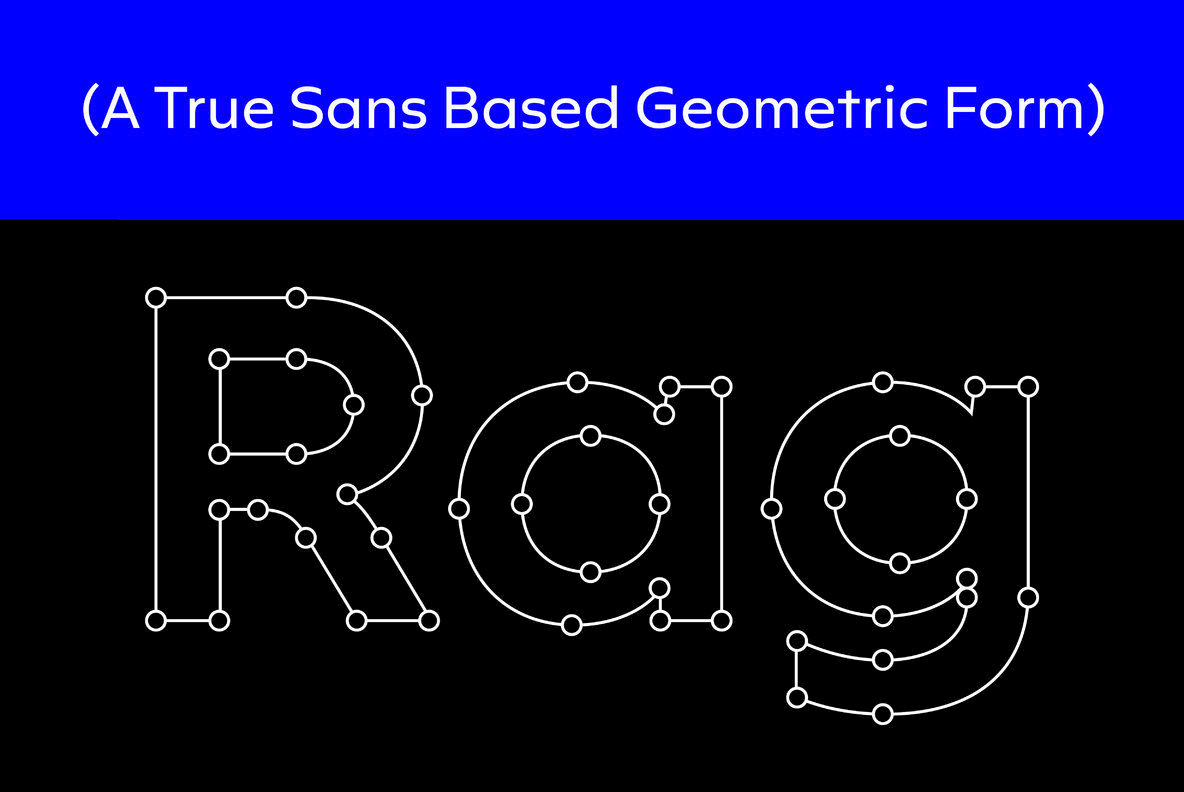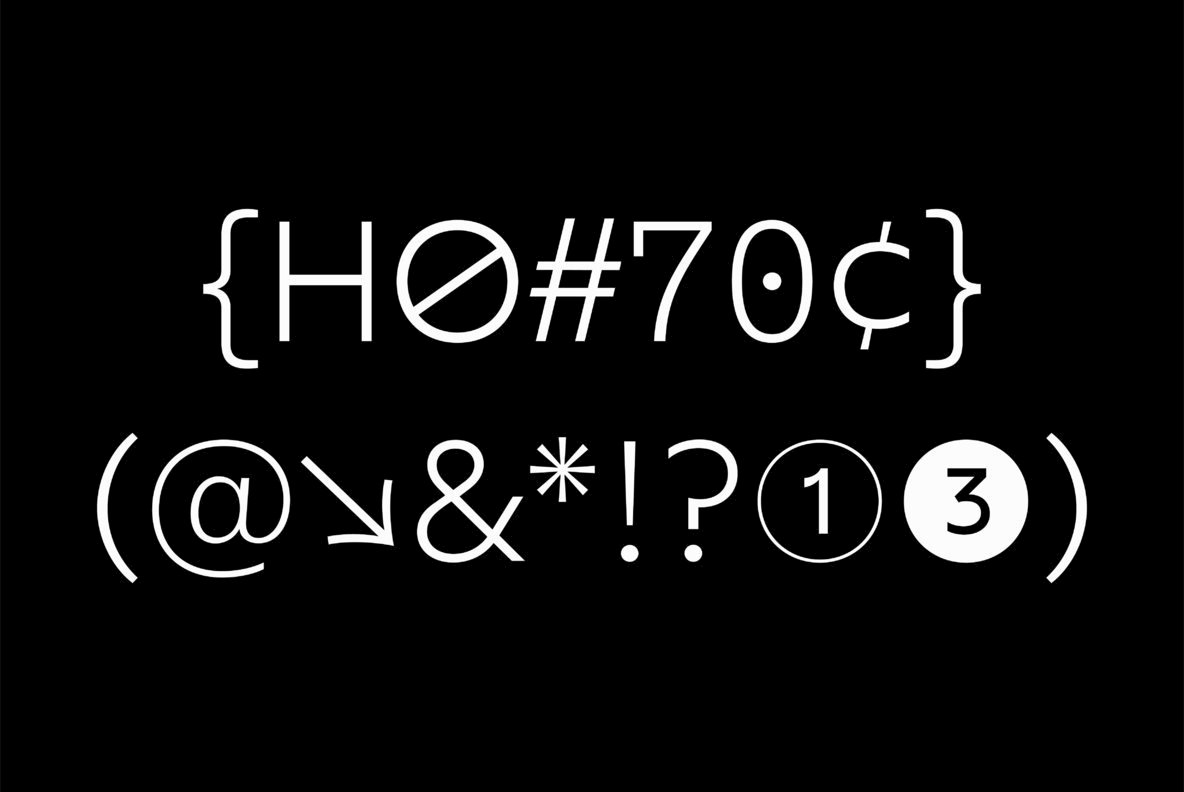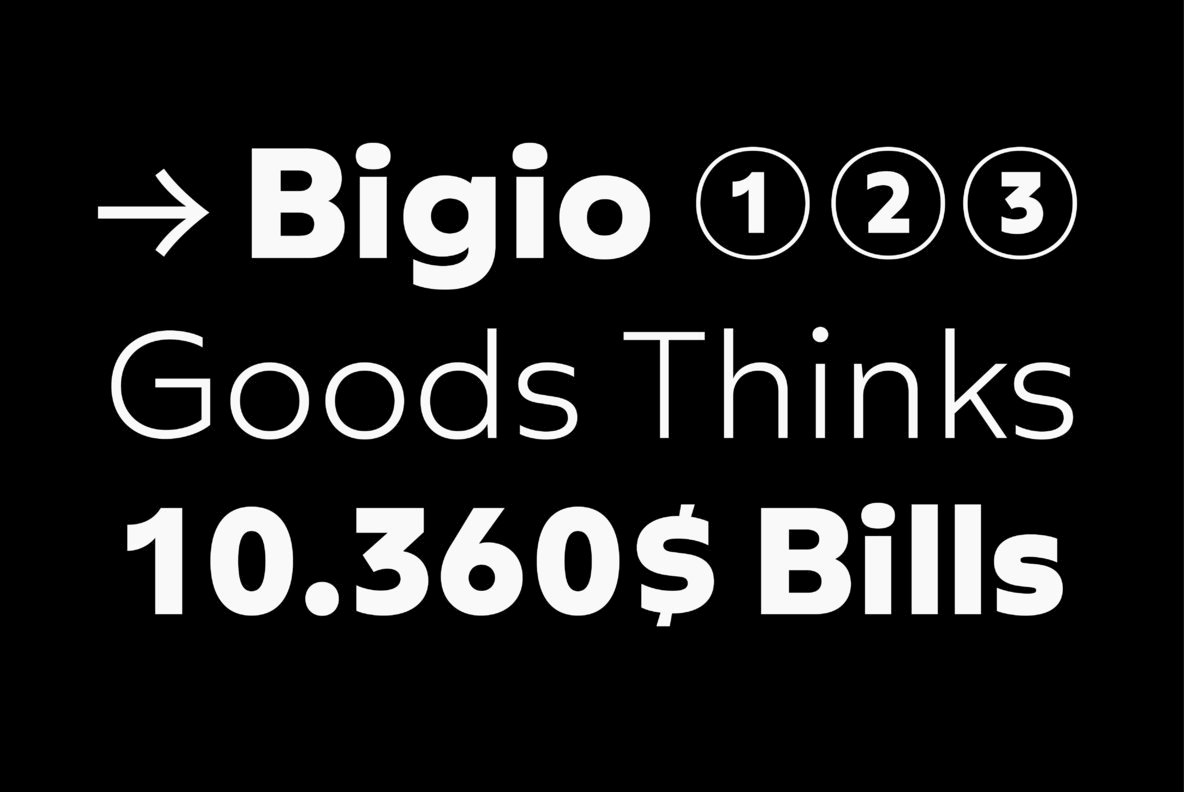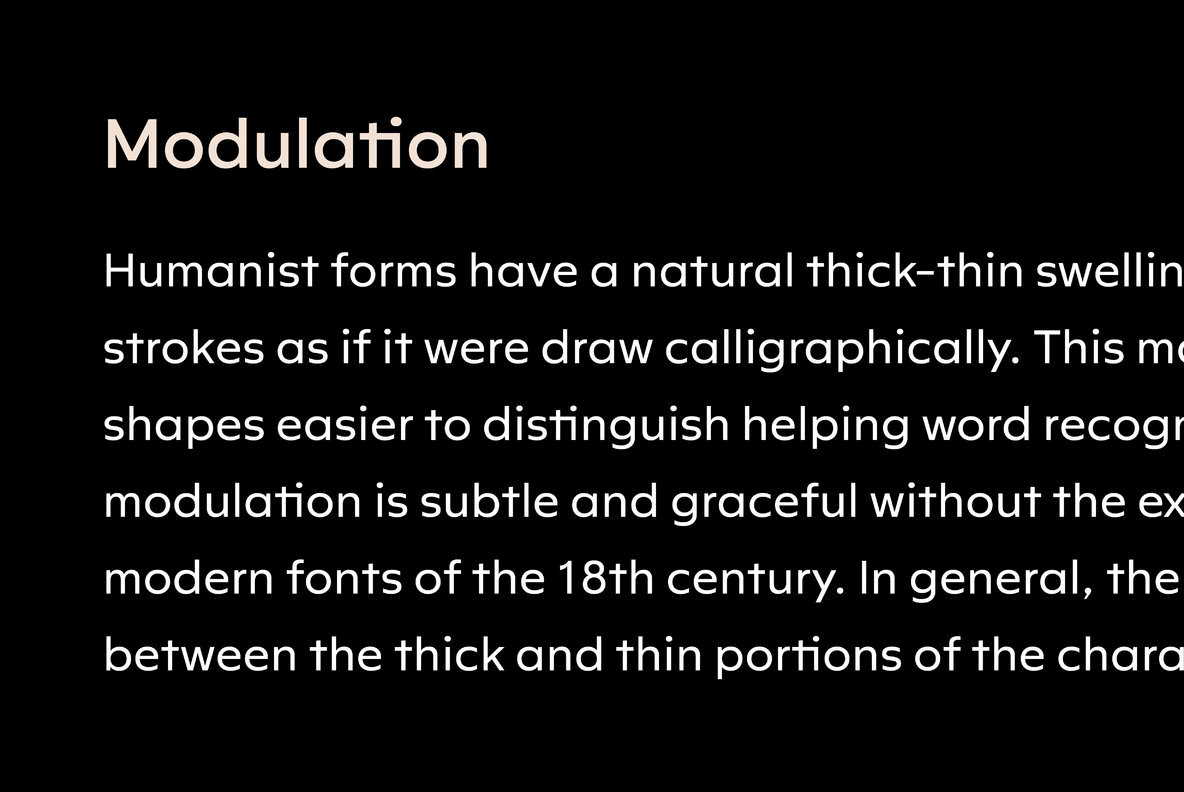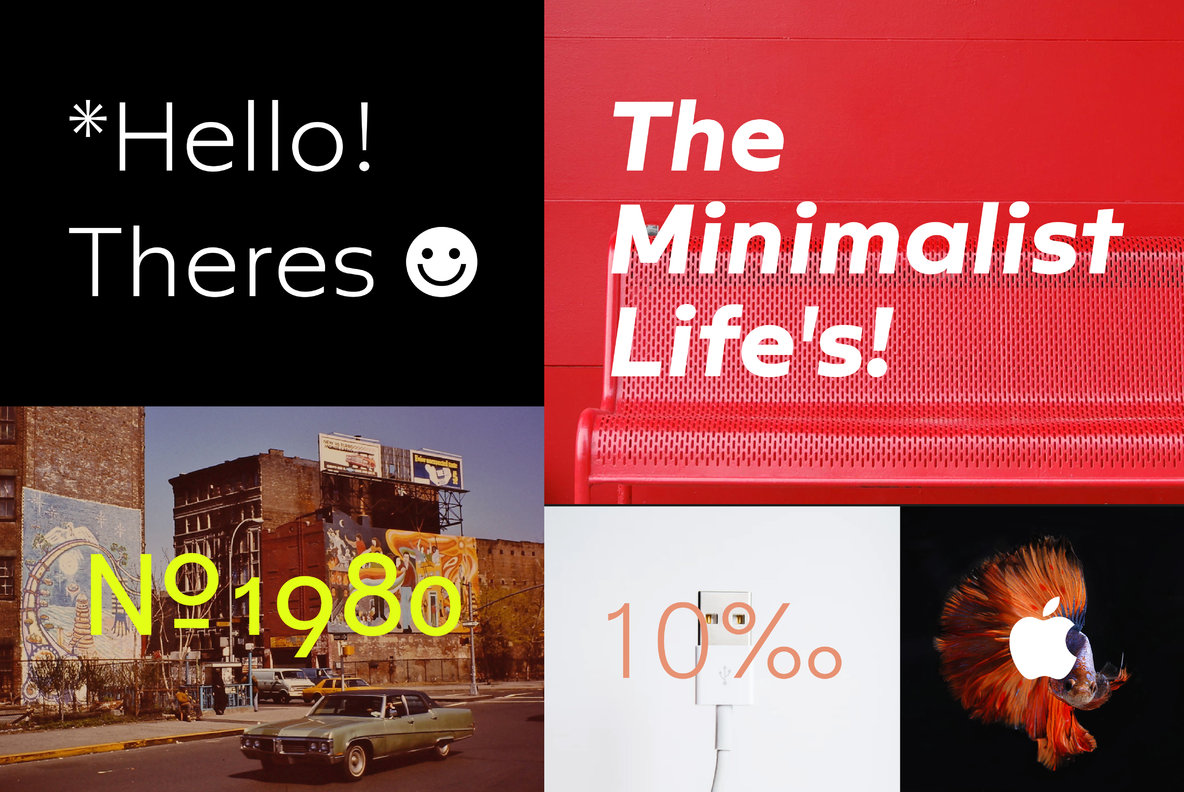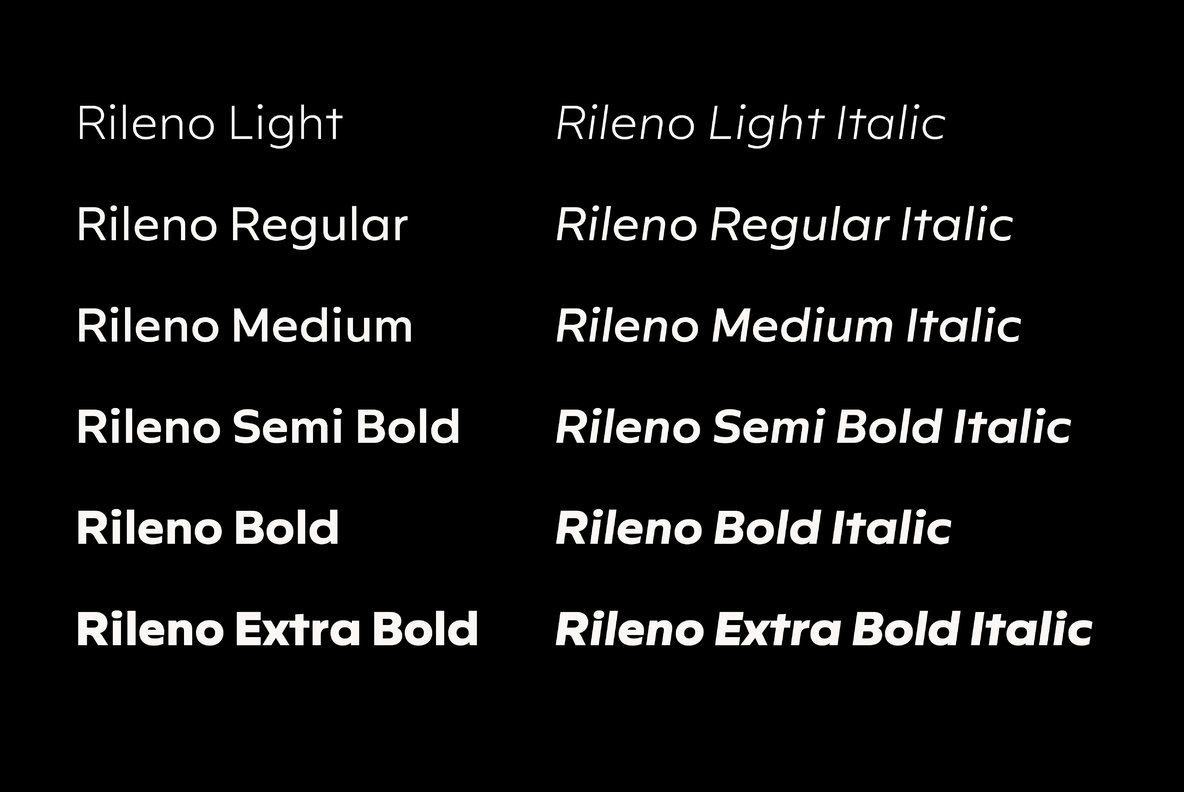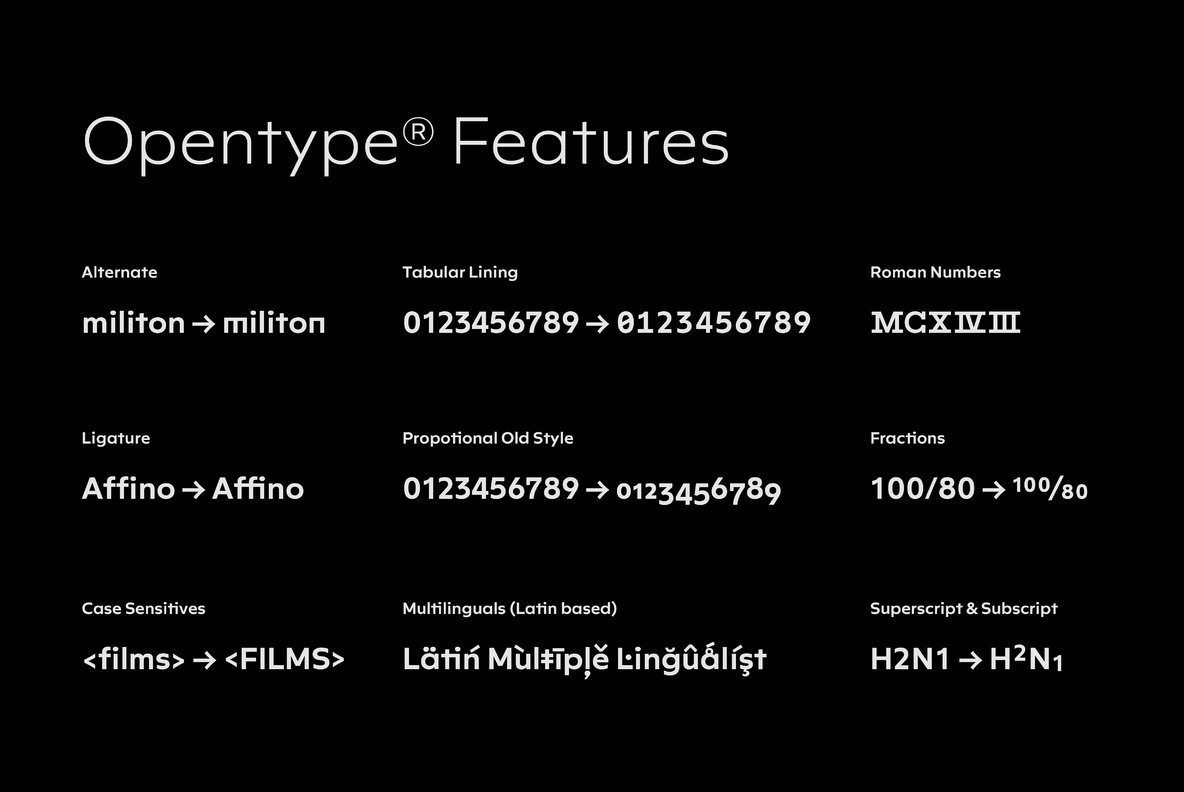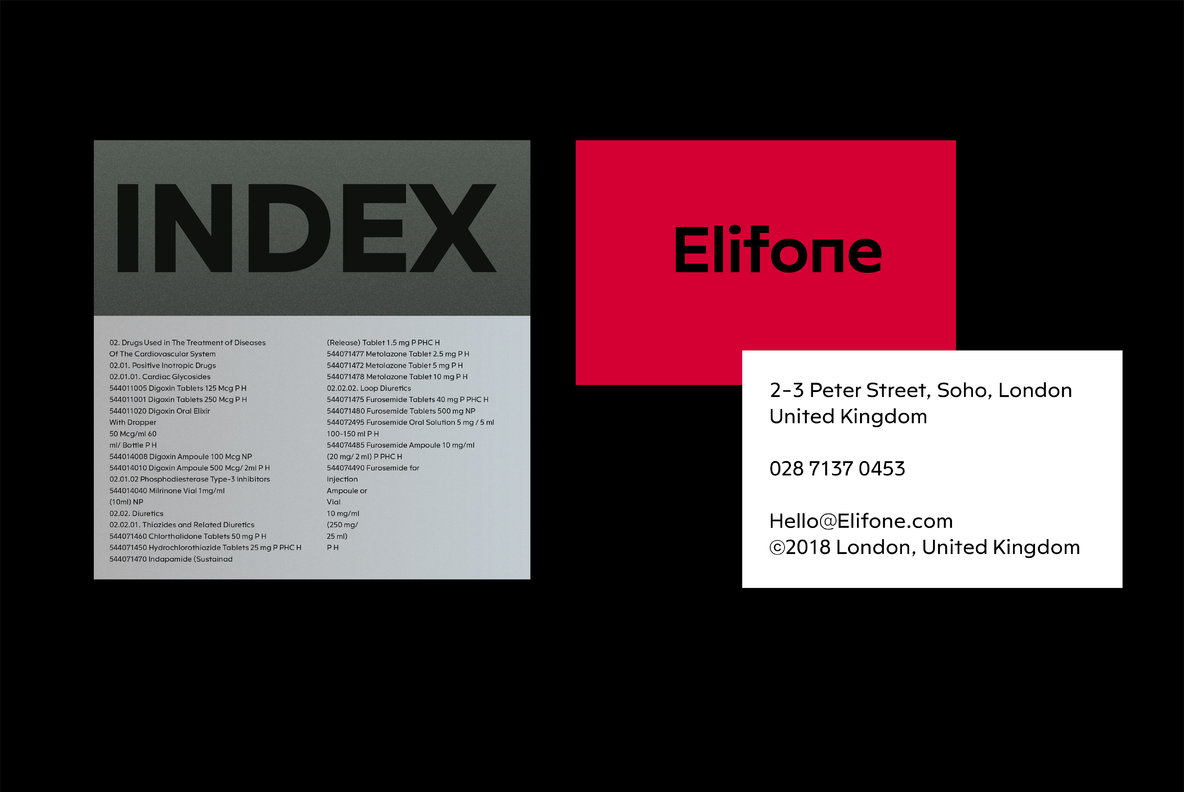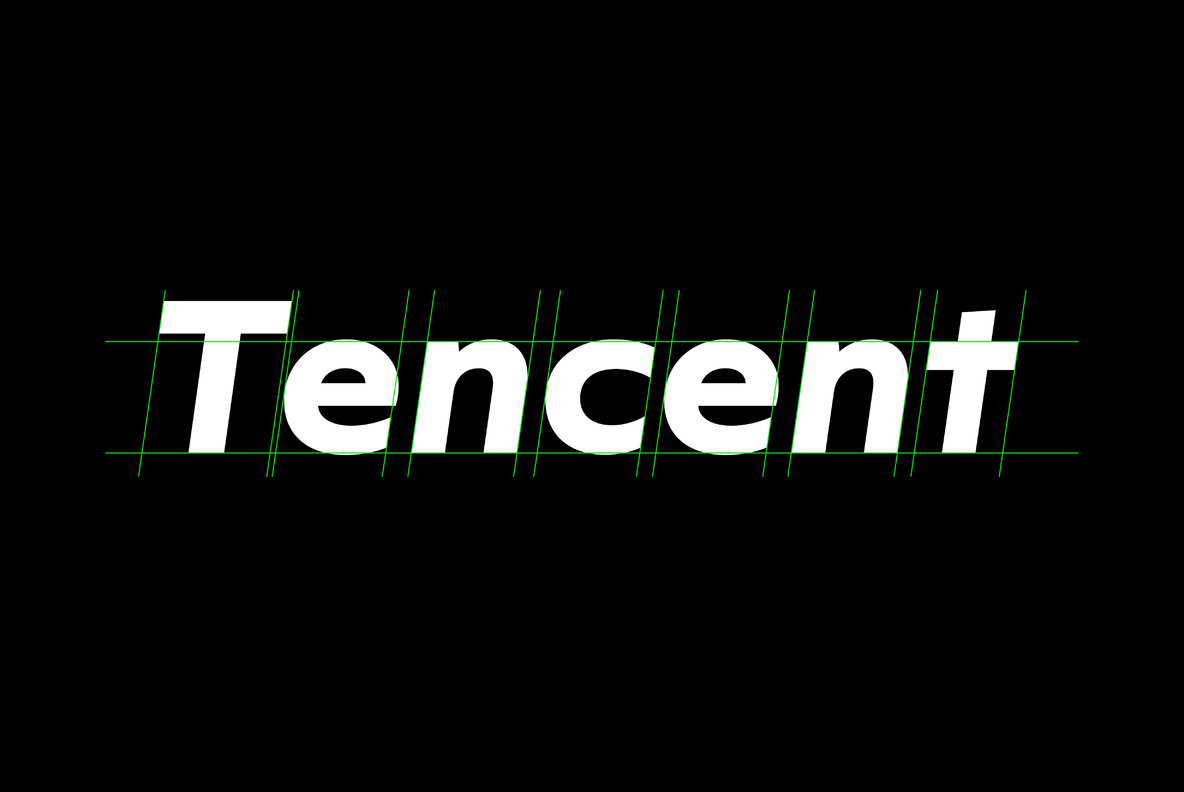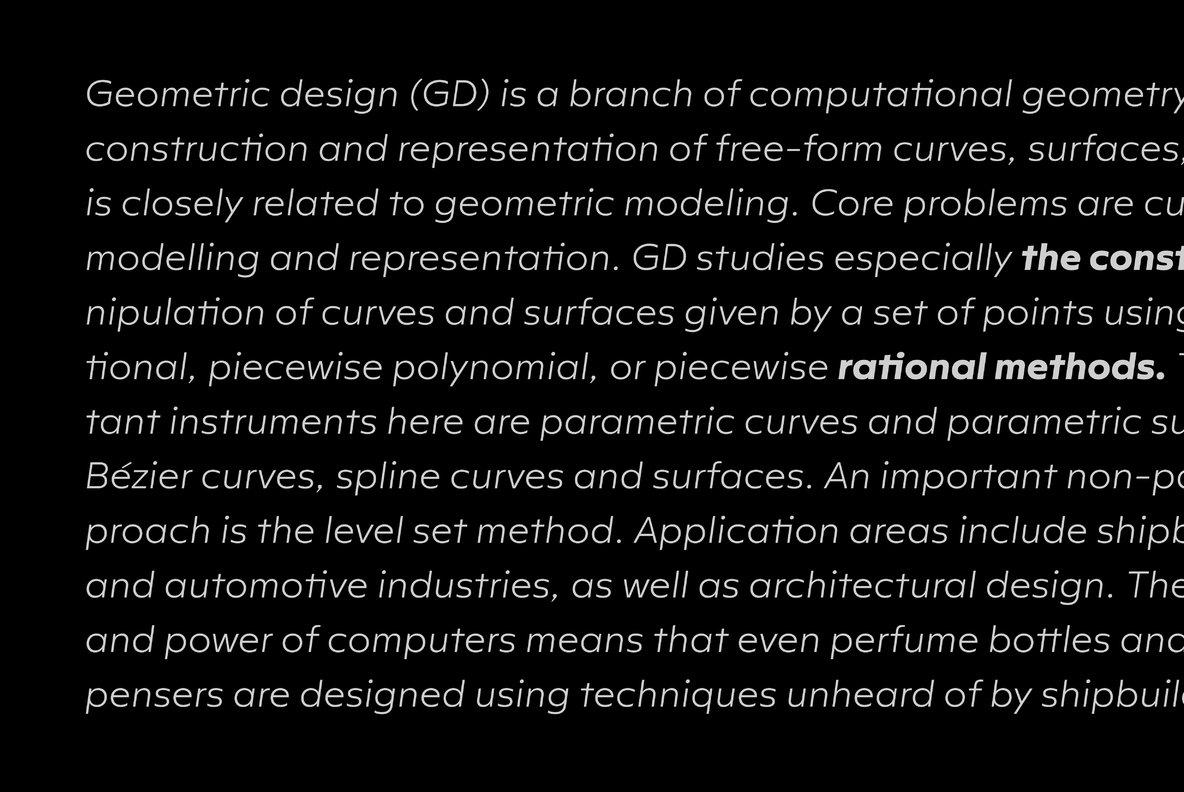
Rileno Sans is contemporary typeface with geometric forms and strong personality. It is constructed in a geometric manner and inspired by the constructivist typefaces of the 1920’s with a humanistic quality.
It comes in 6 weights, 6 uprights and its matching italics.
Rileno Sans equipped with opentype features like alternate characters, Fractions, Monospace Numbers, Superscript/subscript, Arrow, Roman Numbers, Ligatures and More.